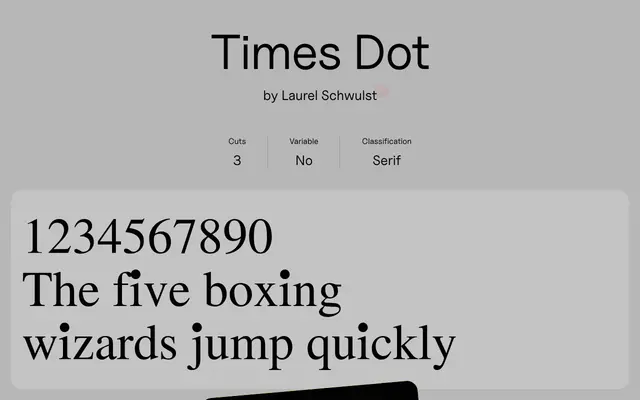
Times Dot
A three-cut serif by Laurel Schwulst reworking the Times typeface tradition, released under the SIL Open Font License for free commercial use.
Designed by Laurel Schwulst, Times Dot offers three cuts within a serif family that takes the Times lineage as its starting point. Distributed freely under the SIL Open Font License 1.1, it permits commercial use, modification and redistribution with certain conditions. The family has no variable axis and no italic or condensed companions.
Listed under Serif classification on Uncut; the name and visual lineage suggest a derivation from Times New Roman, placing it within the transitional serif tradition.